30+ Best Fall & Autumn Fonts
Celebrate the cozy warmth and rich colors of the season with our Fall and Autumn fonts collection. These fonts encapsulate the essence of fall, from the rustic charm of harvest to the crisp air of autumn evenings. Ideal for seasonal greetings, Thanksgiving invitations, or any design that aims to evoke the nostalgic and reflective mood of autumn.
Thanks Autumn Fall Font
The Thanks Autumn Fall Font graces every project with its sweet, heartwarming presence, exuding genuine love with every letter stroke. Its inspiration...
November Fall-Themed Font
Looking for an elegant and versatile handwriting font? Our November Fall-Themed Font could be your answer. Its gentle spirals and seasonal flair rende...
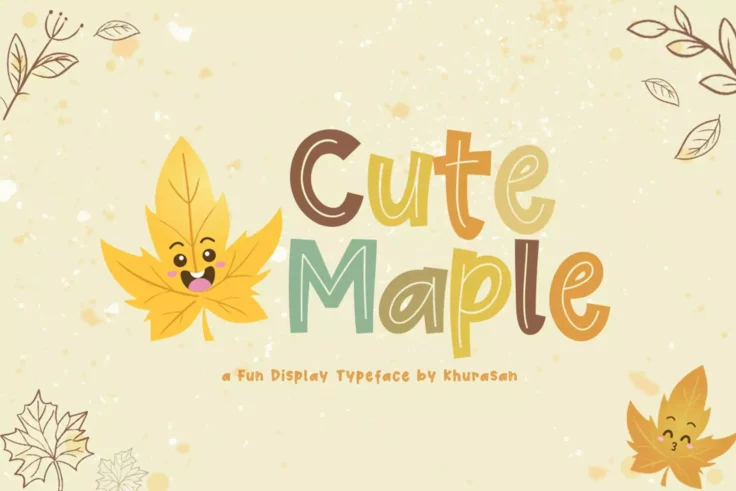
Cute Maple Font
Introduce a touch of light-heartedness to any design project with Cute Maple font. This playful display typeface radiates an infectious joy, capturing...
Autumn Orange Font
Autumn Orange Font is a unique typeface capturing the vibrant hues and cozy feel of the season. Boldly authentic, it perfectly captures the transition...
Autumn Wind Font
The Autumn Wind is a delightful, contemporary script font that effortlessly brings a modern and polished vibe to any project. With a character set tha...
Thankful Sunday Font Duo
The Thankful Sunday Font Duo is a delightful blend of handwritten fonts, perfect for embodying the spirit of Thanksgiving in your design projects. Wit...
Barthley Font
Barthley is a charming handwritten font that exudes warmth and friendliness. Its authentic style sets it apart and makes it suitable for a variety of ...
Billy Holiday Font
Indulge in the nostalgic romance of Autumn in New York with the creative asset that brings this dream alive – the Billy Holiday Font. This versa...
Savor Modern Fall Font
Explore the bold yet delicate beauty of the autumn season with our new display typeface – Savor Fall. Crafted to evoke a warm sense of nostalgia...
Samberia Font
Discover the refreshing allure of Samberia, a vibrant Modern Script Font. Ideal for a host of applications, Samberia captures the essence of todayR...
Warm Autumn Font
Introducing Warm Autumn, a uniquely striking and authentic display font. This piece stands out with a bold and memorable style that perfectly encapsul...
Hello Thankies Font
Introducing the Hello Thankies font duo, a fantastic collection inspired by the warmth and affection of a Thanksgiving moment. This unique pair of fon...
Maple Memories Font
The Maple Memories font is an exquisite handwritten typeface, designed with a shine of realism that gives your designs a lifelike feel. Its intricate ...
Croffle Playful Font
Croffle Playful Font transforms ordinary text into expressions of joy and beauty effortlessly. Its cheerful and informal appearance invites warmth and...
Happy Fall Font
Welcome to Happy Fall, our latest creation in the world of typography. This modern handwritten typeface is a unique and creative asset that perfectly ...
Autumn Field Font
Welcome to the world of Autumn Field, a distinctive handwriting type presented by the illustrious ikiiko. This typeface invites you into a design play...
Pear Leaves Font
Experience the warmth and versatility of Pear Leaves, a beautifully creative handwritten script font. Inspired by classic typeface designs, it injects...
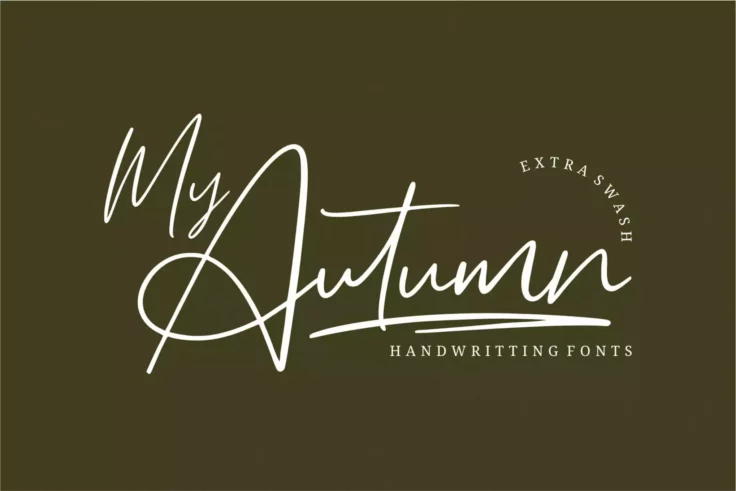
My Autumn Font
Welcome the new star in the world of typography – My Autumn Signature Font! Designed to capture the warmth and vibrancy of the fall, this is a n...
Gratefully Thanksgiving Font
Immerse yourself in the Autumn season with the delightful Gratefully Thanksgiving Font. This unique, fun serif font boasts of a ‘fall’s th...
Savo Bawdy Typeface
Savo Bawdy is a beautiful and elegant cursive font that is perfect for designers looking to add a touch of sophistication to their work. The font is h...
Autumn Romans Font
Meet Autumn Romans – Modern Sans Display, a fresh and distinctive font that takes type-face to a whole new level. Exuding bold originality, Autu...
Start Autumn Font
Introducing Start Autumn, our latest offering in the category of Modern Serif Typeface. This font captures the essence of autumn with a warm, nostalgi...
Orange Leafy Autumn Font
Orange Leafy, an Autumn font duo, beautifully captures the essence of fall with its unique maple leaf display. Warm and attractive, it adds an irresis...
Zaida Font
Discover the charm of the fall season effortlessly mirrored in Zaida Autumn – our new, Beauty Autumn Typeface. This unique and captivating font ...
Gobbie Gobble Font
Gobbie Gobble Font is a handwritten font that offers a Thanksgiving-themed touch to any designs. With its fun and dynamic style, this font adds a fest...
Autumn Atmosphere Font
Introducing Autumn Atmosphere, a bold, striking, and authentic display font. It is designed with an innate versatility that makes it ideal for a vast ...
Additionally, testing the font across various mediums and sizes is important to ensure its effectiveness and readability in all intended applications, from digital graphics to printed materials. Pairing Fall and Autumn Fonts with appropriate imagery, colors, and design elements can also enhance the thematic consistency and cozy feel of your project.